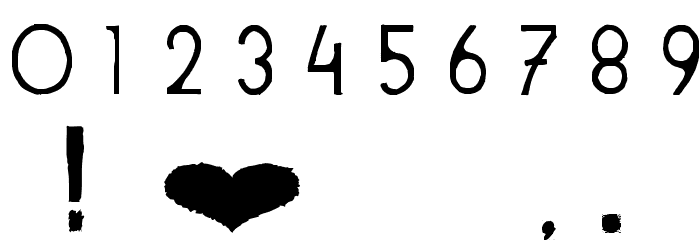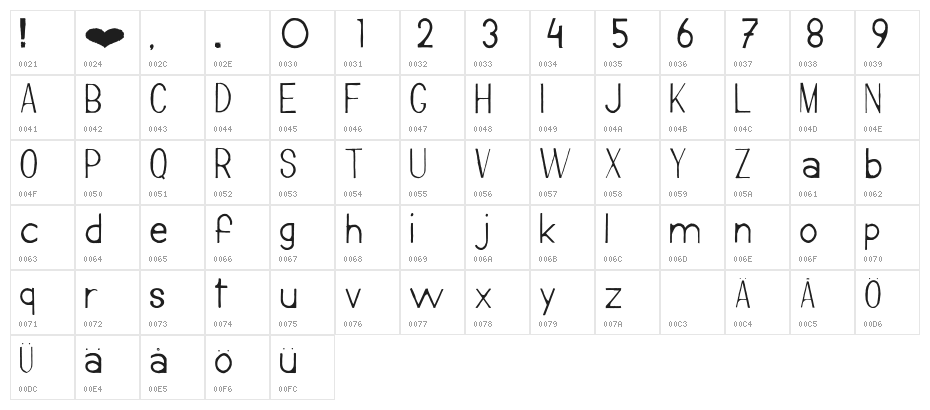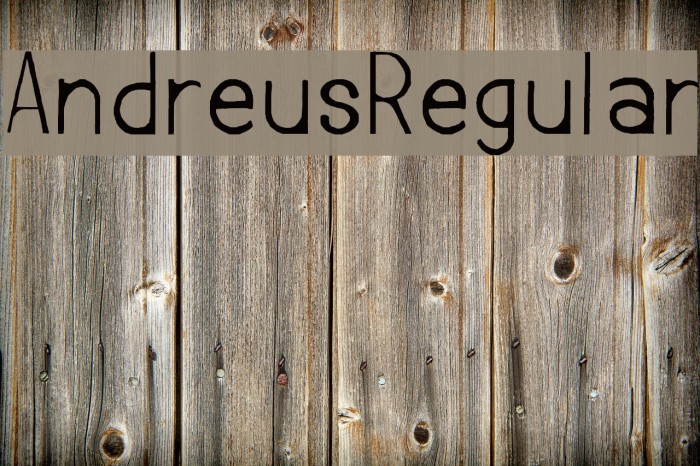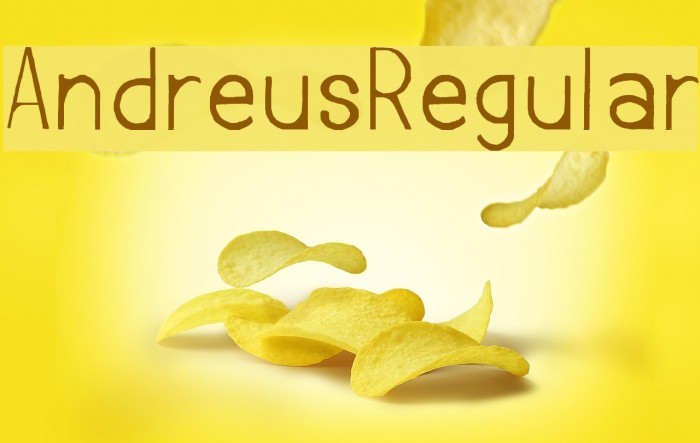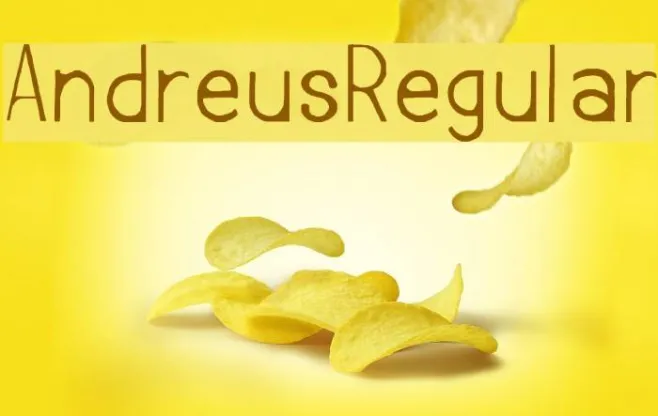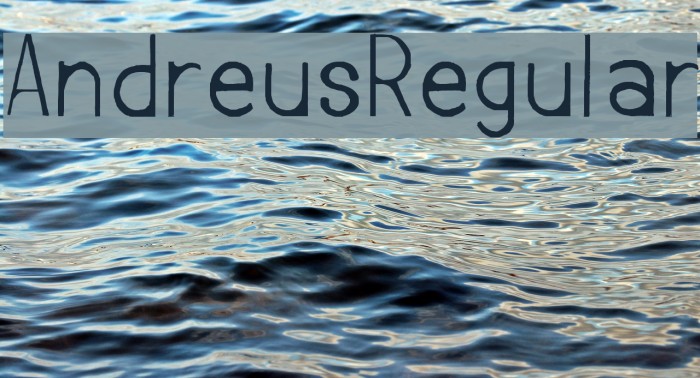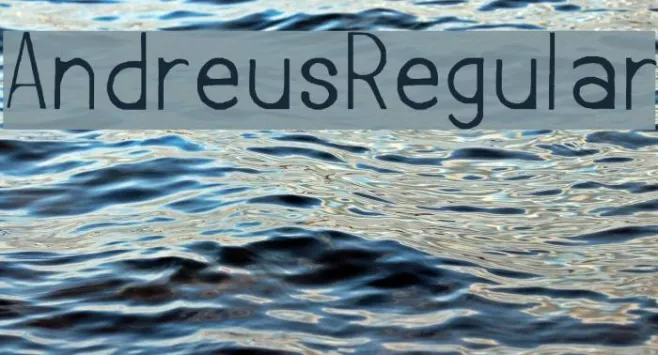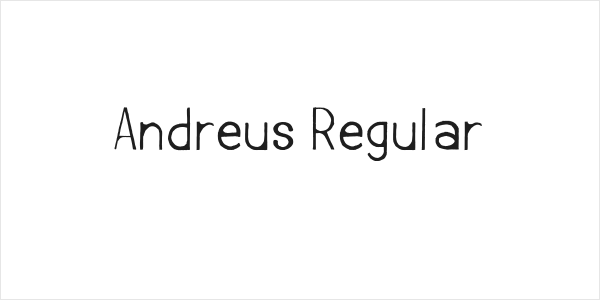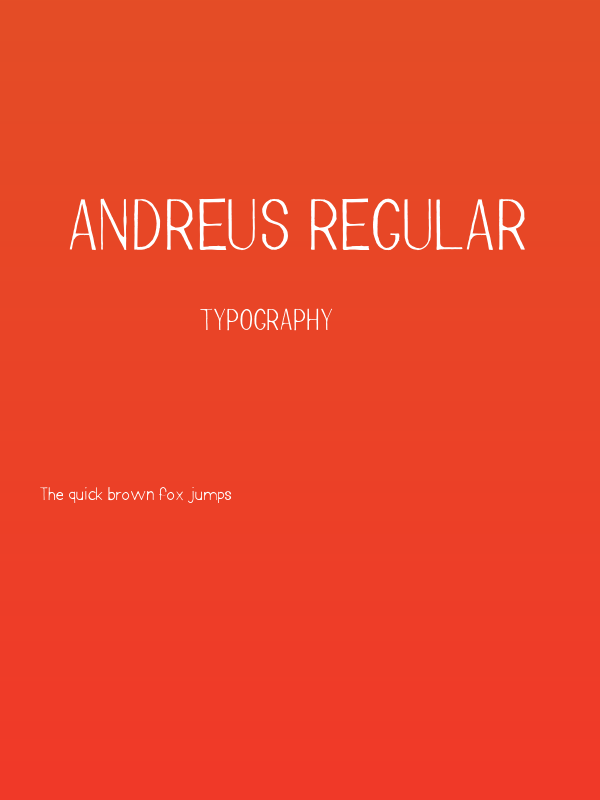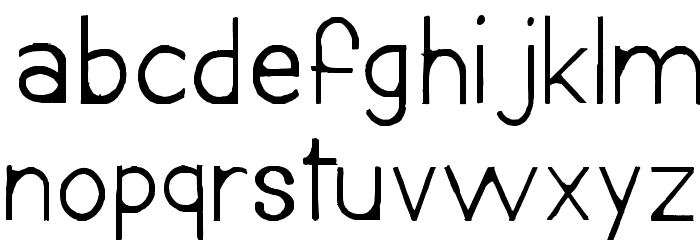
Andreus-Regular Font
Andreus-Regular Description
This font features a hand-drawn, organic style with a playful and slightly irregular appearance. The uppercase letters are tall and narrow, giving a sense of height and elegance, while the lowercase letters maintain a consistent flow with rounded edges. The numerals are distinct and easy to read, complementing the overall casual yet sophisticated look. Special characters add a whimsical touch, enhancing the font's versatility. The strokes vary in thickness, providing a dynamic and lively feel, making it suitable for creative projects.
| Overall Style | Casual, Artistic |
| Use Case | Headlines, Creative projects, Informal branding |
| Proposed Projects | Ideal for children's books, creative posters, casual branding, and artistic invitations. |